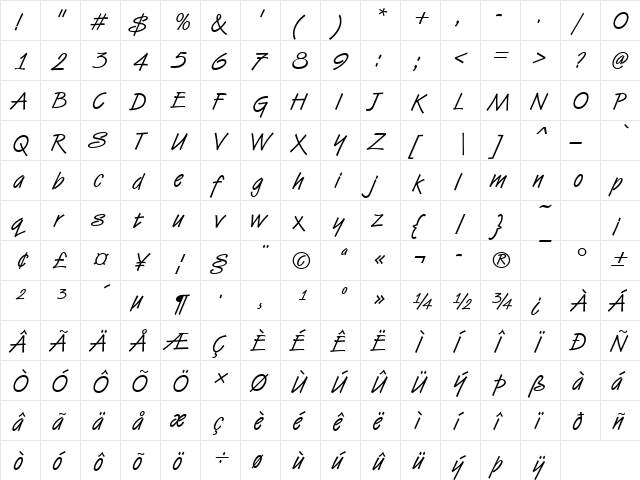
URWVaporumD Regular
Design Context for URWVaporumD Typeface
URWVaporumD is a composed and adaptable typeface that performs quietly and consistently across a wide range of design contexts.
Pro Tip: Use URWVaporumD in both headline and body roles to test its range before committing to a single application.